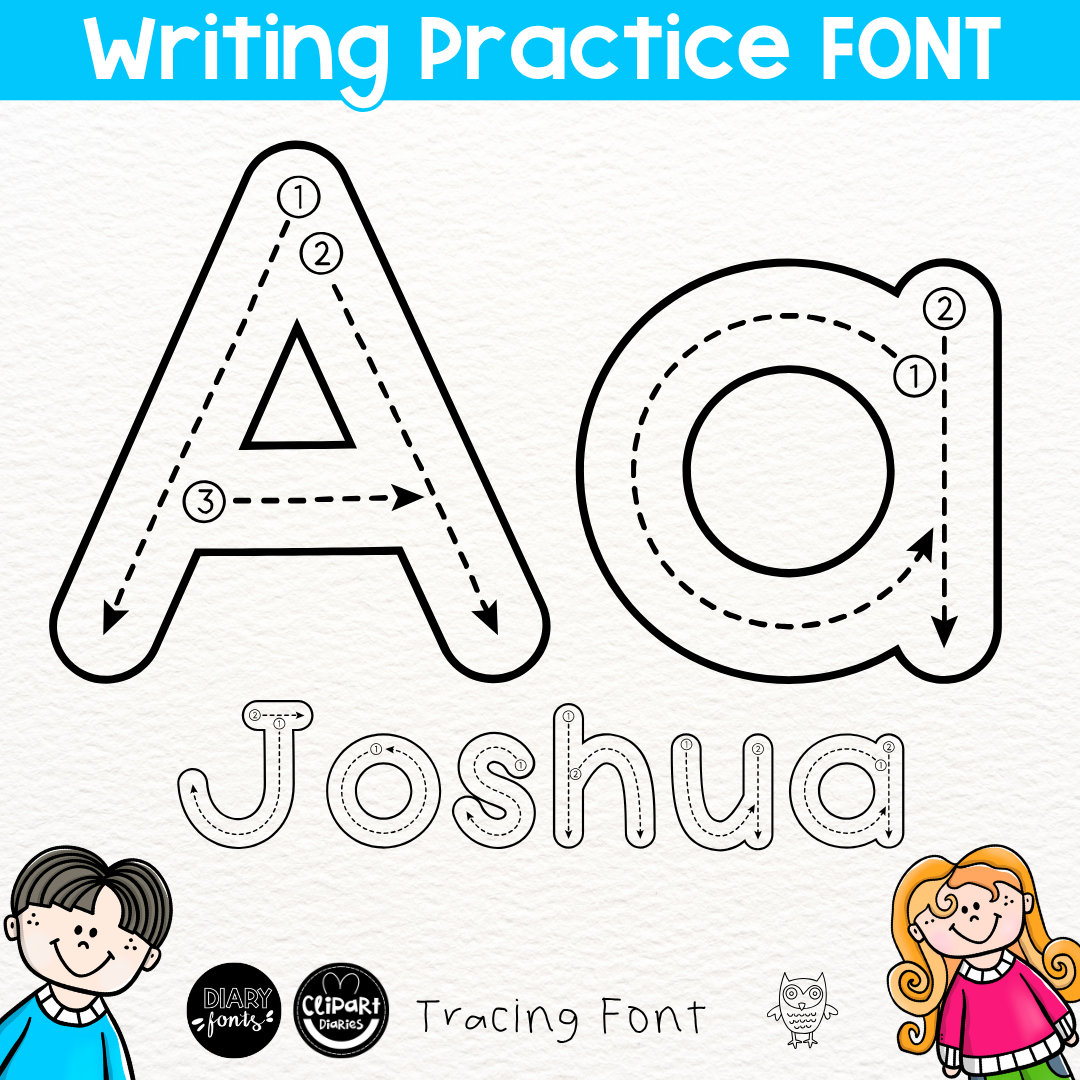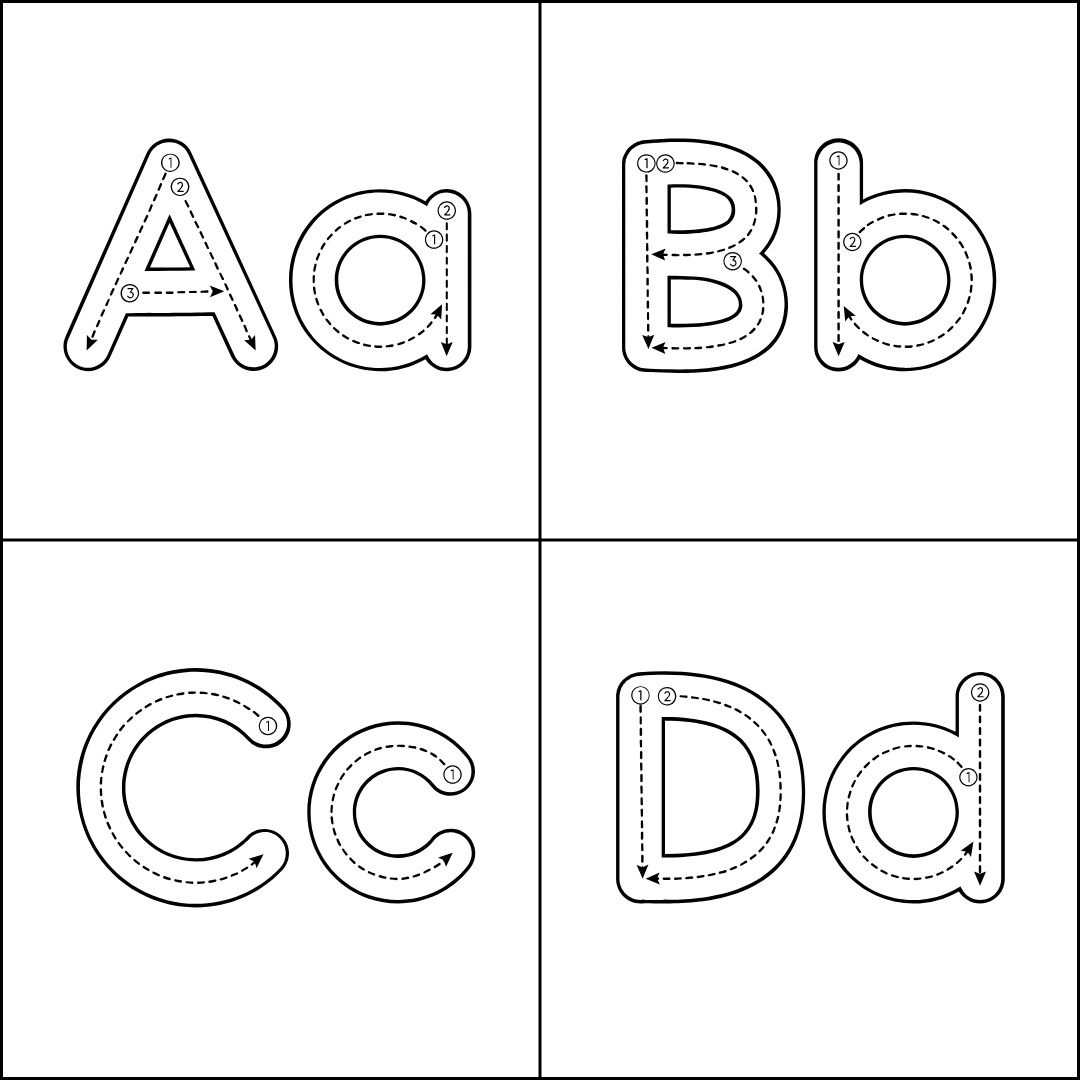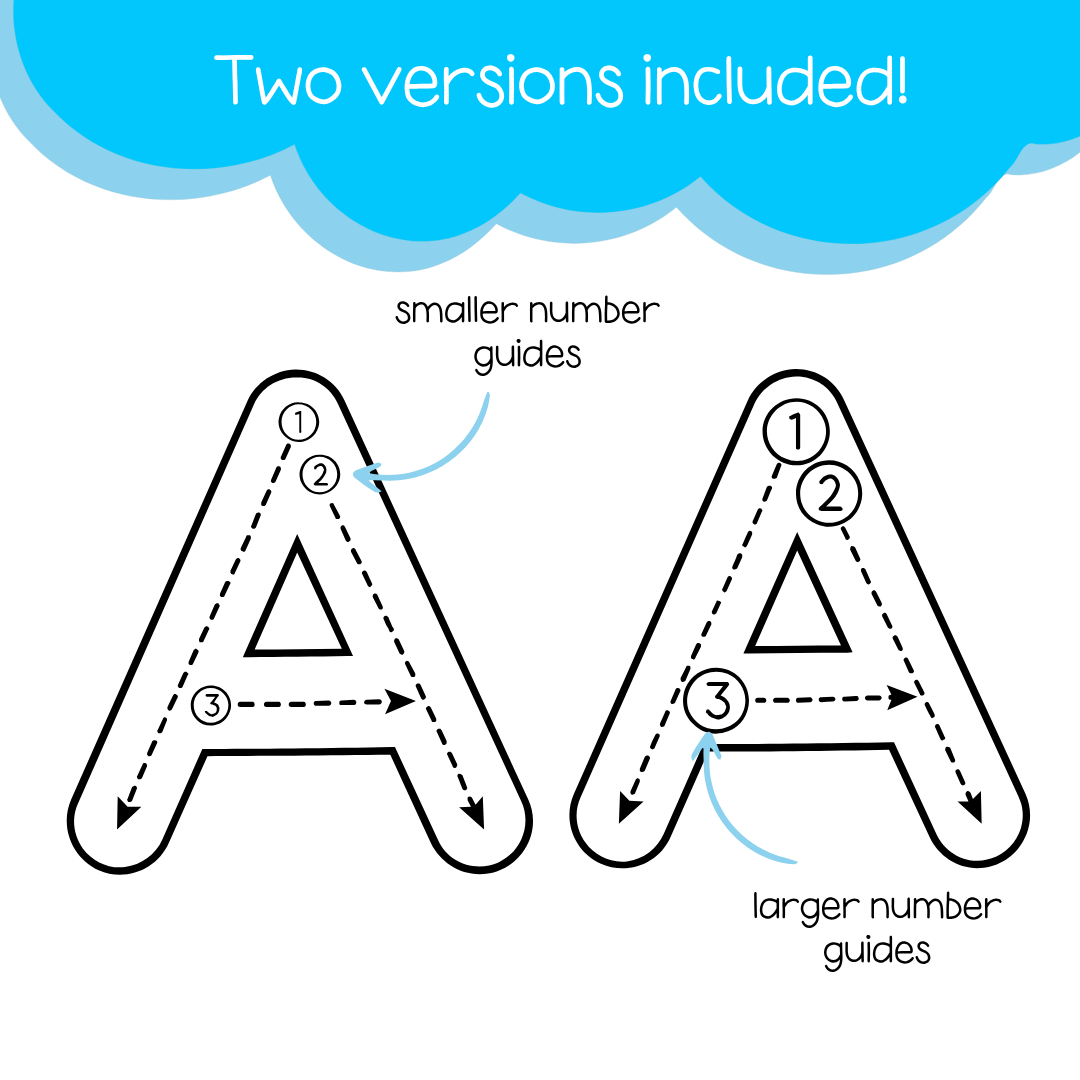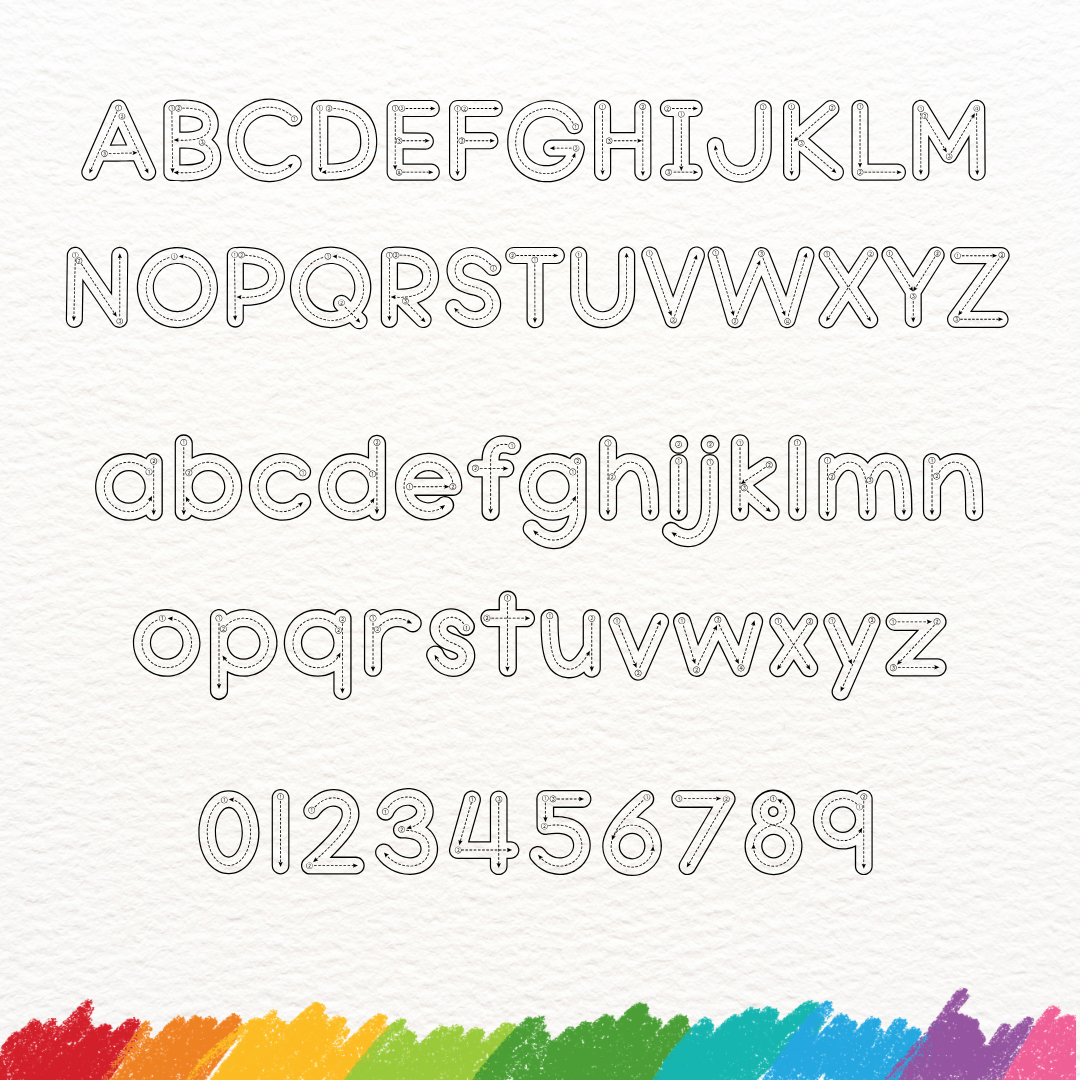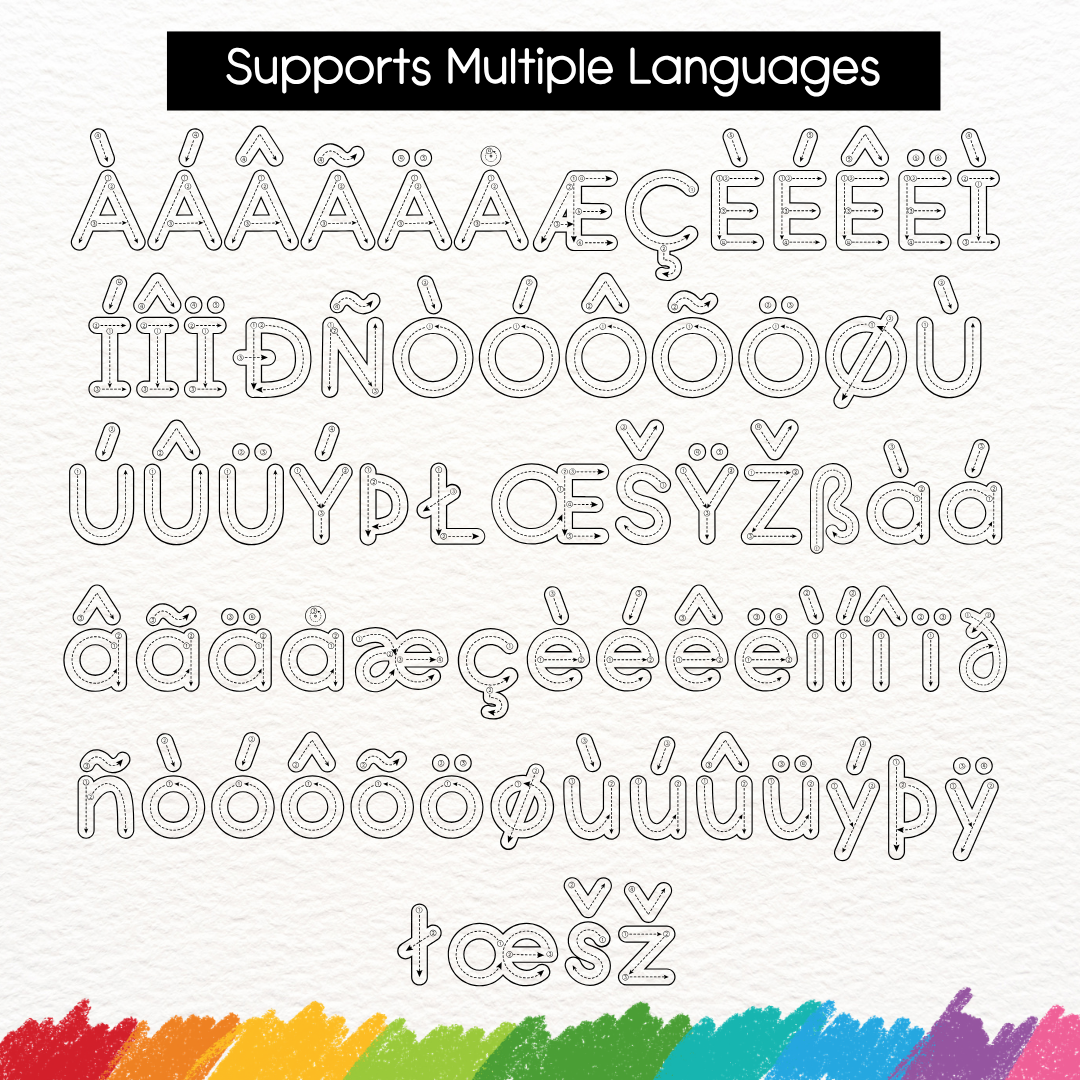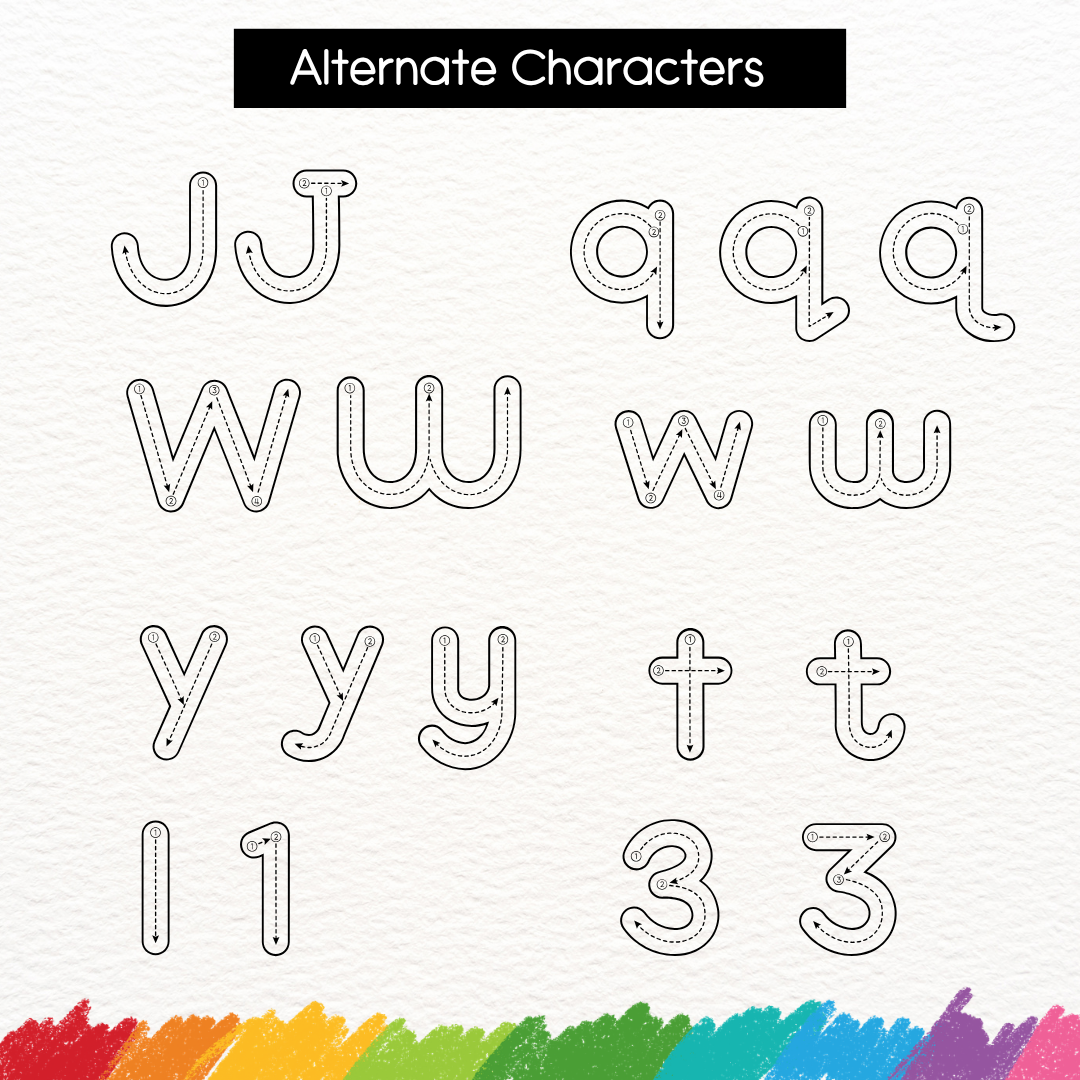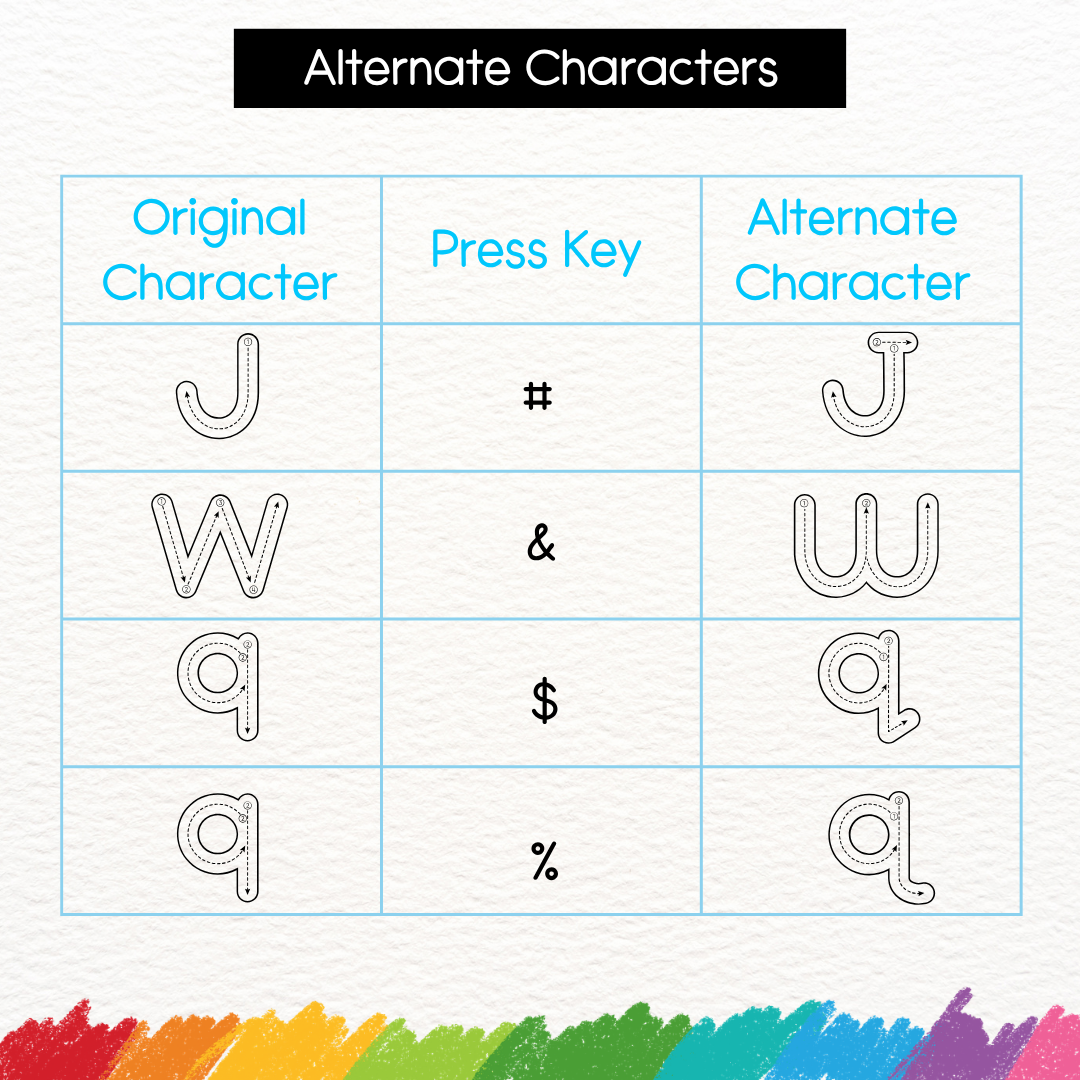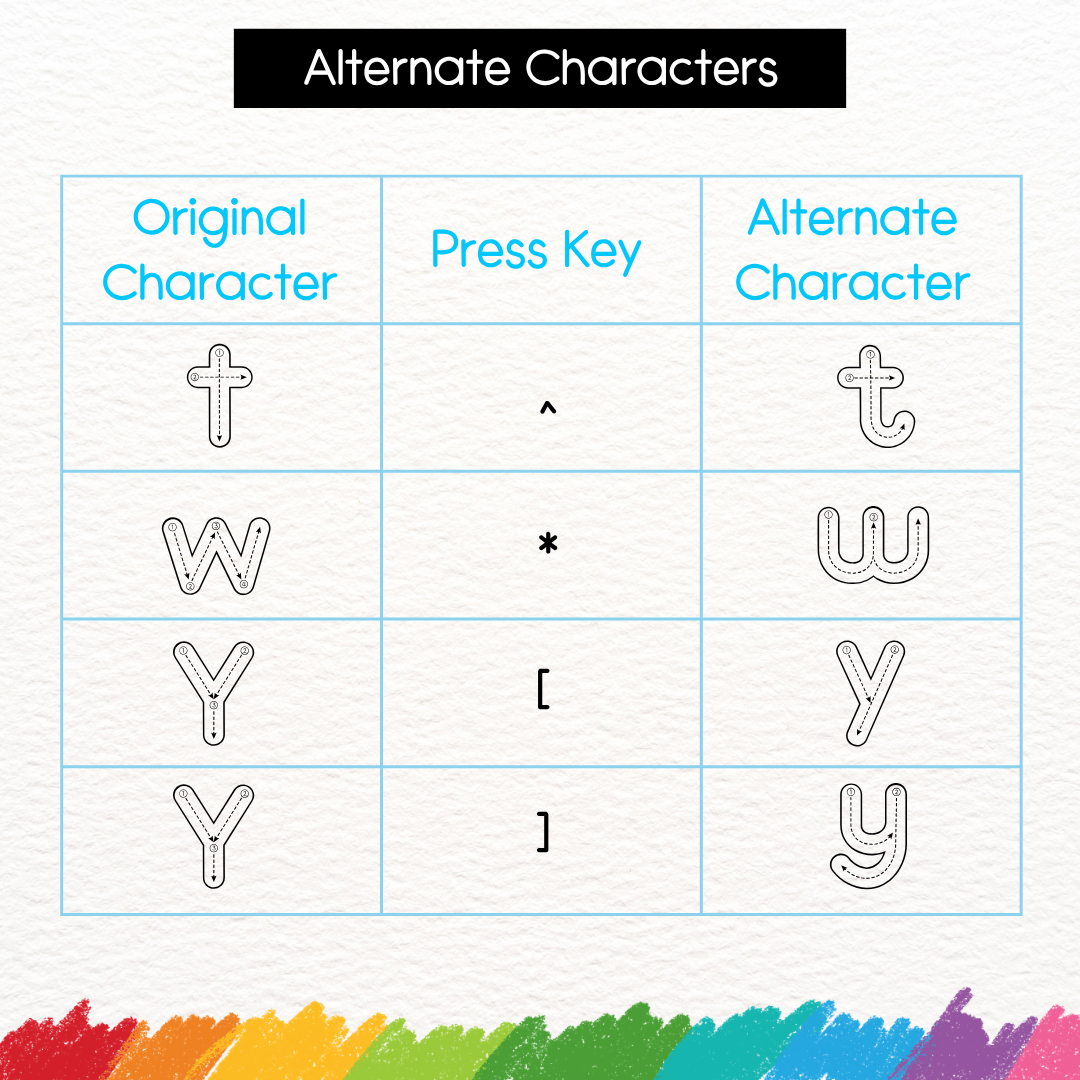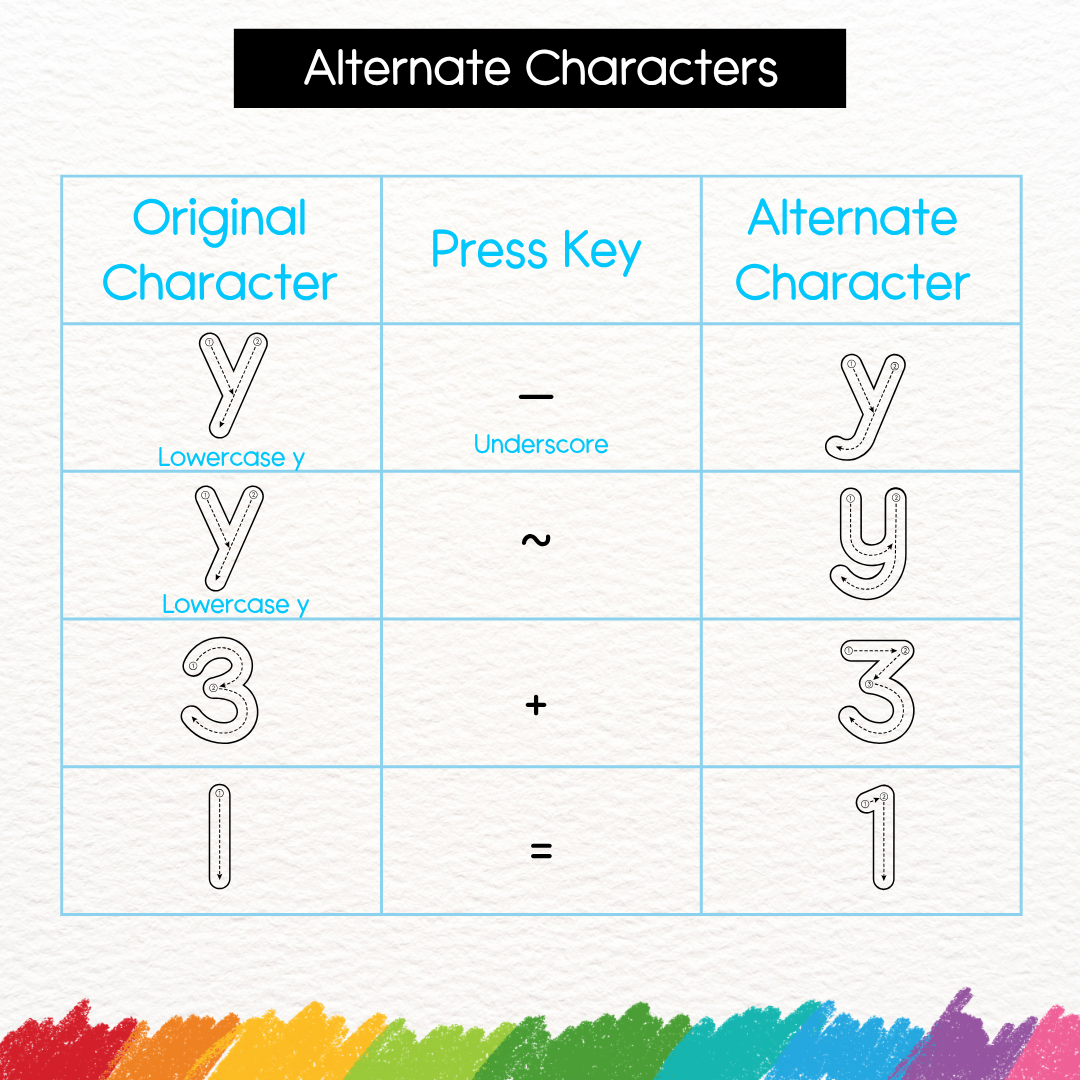
ABC Alphabet Handwriting Tracing Bubble Font with Directional Arrows and Guide – Print Font
This font has large letters with tracing lines or arrow and number guides, perfect for your print handwriting practice and fine motor activities. This set includes all capital letters, small letters, and numbers best for toddler tracing, name tracing, letter recognition letter tracing and number tracing exercises worksheets.
Alternate characters for J, W, Y, q, t, w, 1, and 3 are also available. (See preview for the letter alternates.) This font supports multiple accents or languages.
TWO FONT VERSIONS are included in this set – one with smaller number guides and one with larger number guides.
Create fun and engaging activities for kids to trace letters with these goodies!
(PLEASE SEE PREVIEW TO SEE LETTER FORMS)